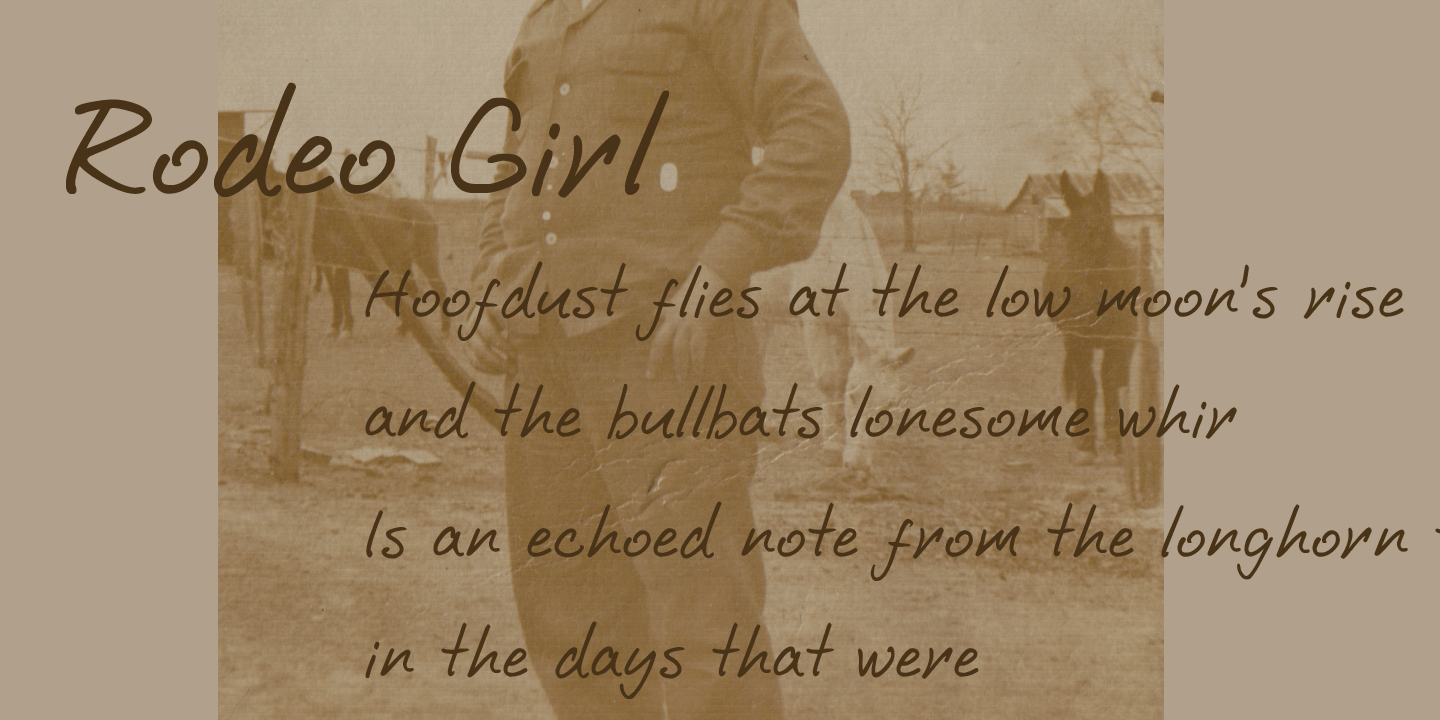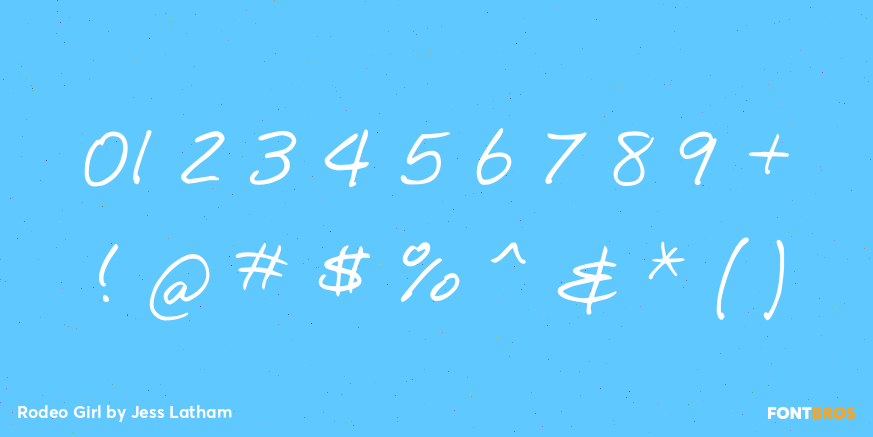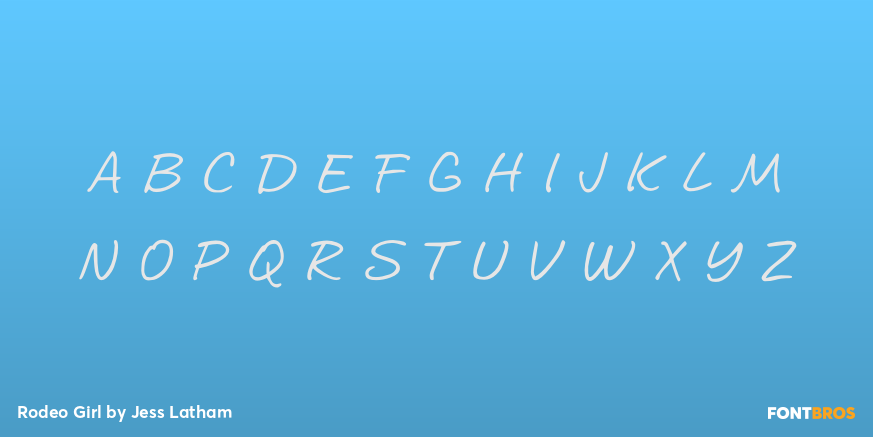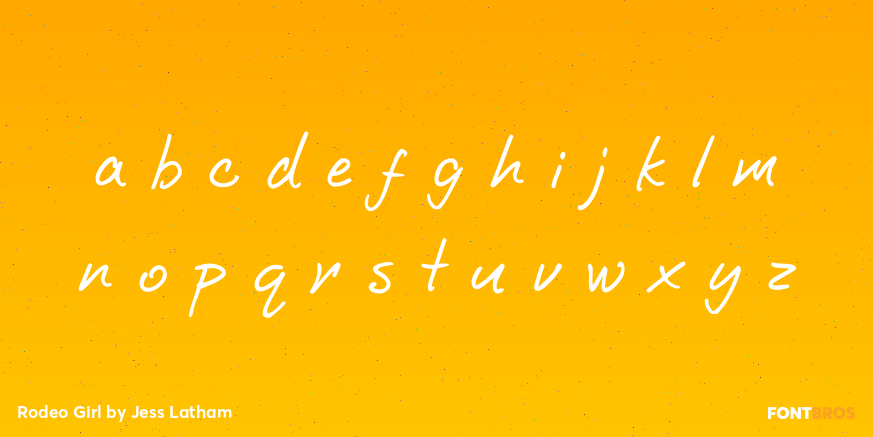
Rodeo Girl
Font Family by Jess Latham
Rodeo Girl is Blue Vinyl's first handwriting font! It's perfect when you need a loose handwritten look. Rope it in today!